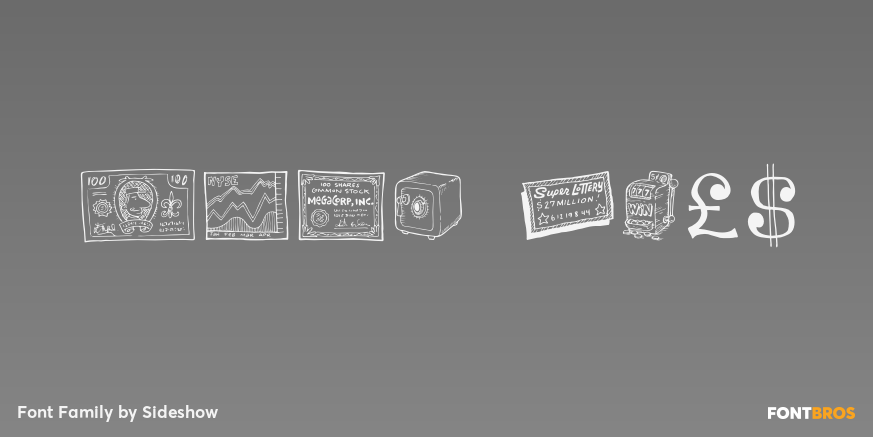
HomeFont BrosDingbatMoneybats Dingbat Moneybats FacebookXPinterestWhatsApp 1 of 1 About Moneybats Cash flow not what it used to be? Well, for chump change you can pick up Moneybats and inject a little fiscal fun into an economic downturn. Finally, an investment that won\’t depreciate in value!  DOWNLOAD NOW People also explored Dallyna Font Symptomatic Takumas Font Zachary Font Simple Signature Font Mandala Script Mornin Awesome Font Strongend Bold Font Outbon Font 285 0 TagsMoneybats Font Previous articleEconomicaNext articleSpellbreaker BB LEAVE A REPLY Cancel reply Comment: Please enter your comment! Name:* Please enter your name here Email:* You have entered an incorrect email address! Please enter your email address here Website: Save my name, email, and website in this browser for the next time I comment. Personal Use Free Stereofidelic Personal Use Free Read more about this font Market Love Personal Use Free Read more about this font Saolice Personal Use Free Read more about this font Lovetle Personal Use Free Read more about this font BLOG Using Fonts in Digital Marketing: Tips to Strengthen Your Brand Identity In the realm of digital marketing, every visual element plays a crucial role in shaping a brand's identity, and fonts are no exception. The... How to Cut Any Font on Cricut: Convert a Font to SVG (Free) Free vs Paid Fonts: Why Investing in Premium Fonts Is Worth It Elegant Wedding Invitation Fonts – Handwritten & Script Fonts